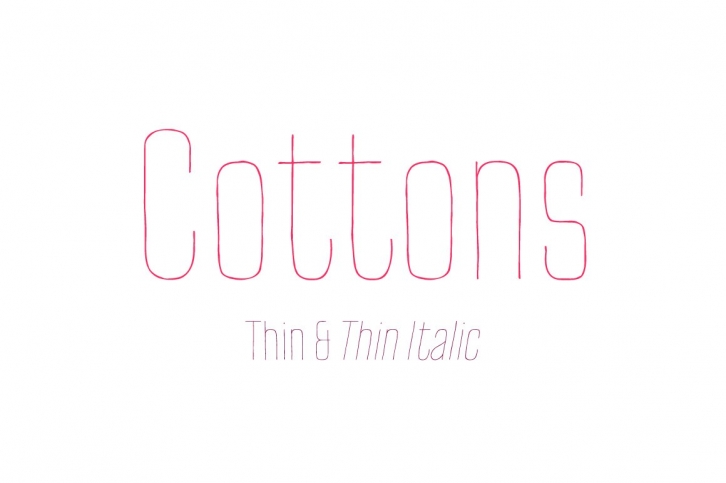
Pinatas Cottons Thin & Thin Italic is a friendly hand-drawn font pair with condensed proportions.
• 410+ glyphs in each style
• Supports 70+ languages (incl. Cyrillic)*
Each separate style of Pinatas Cottons was drawn by using different instruments. For instance, the black style was painted with a real brush, and the thin one was created with a pen. We tried to keep this analog feeling of hand drawing while we digitalized each style of the typeface. Pinatas Cottons is your ideal design helper.
* Pinatas Cottons supports 70+ languages: Albanian, Basque, Belarusian, Bosnian, Breton, Corsican, Croatian, Czech, Danish, English, Estonian, Faroese, Filipino, Finnish, French, Gaelic, German, Hungarian, Icelandic, Indonesian, Irish, Italian, Latvian, Lithuanian, Macedonian, Moldavian, Norwegian, Polish, Portuguese, Romanian, Russian, Sámi (Southern, Lule), Serbian, Slovak, Slovenian, Spanish, Swahili, Swedish, Turkmen (Latin), Ukrainian, Zulu and many others.